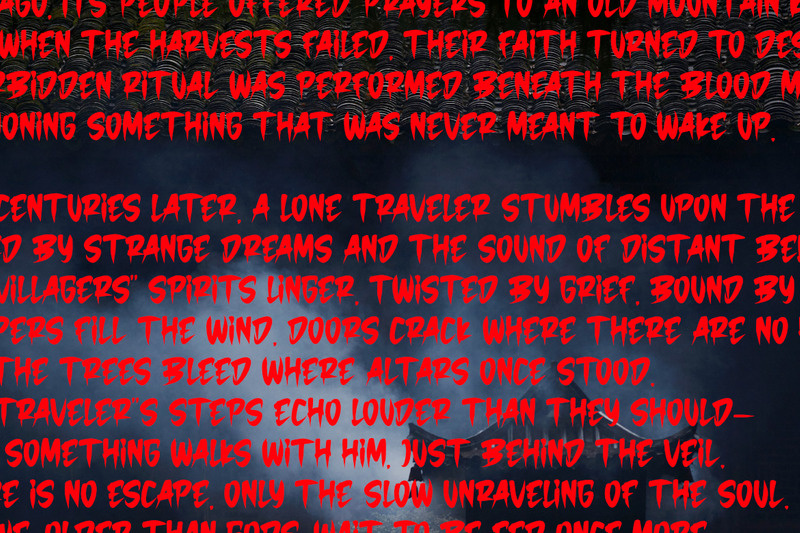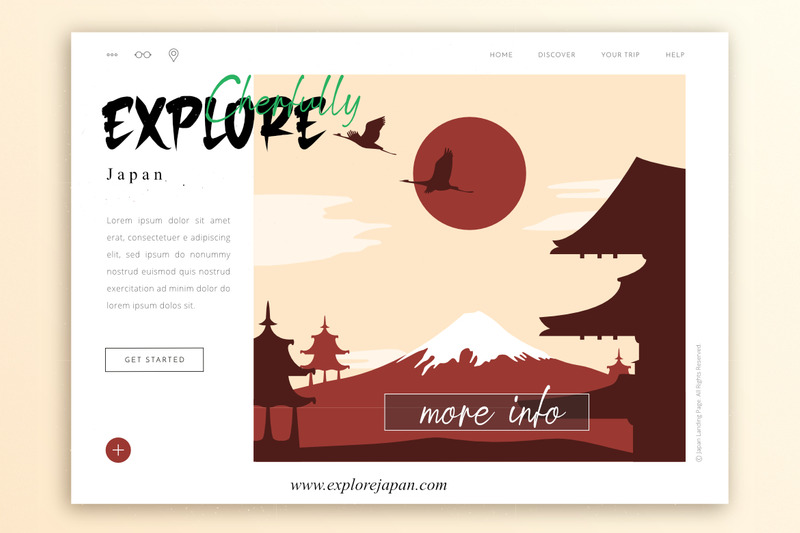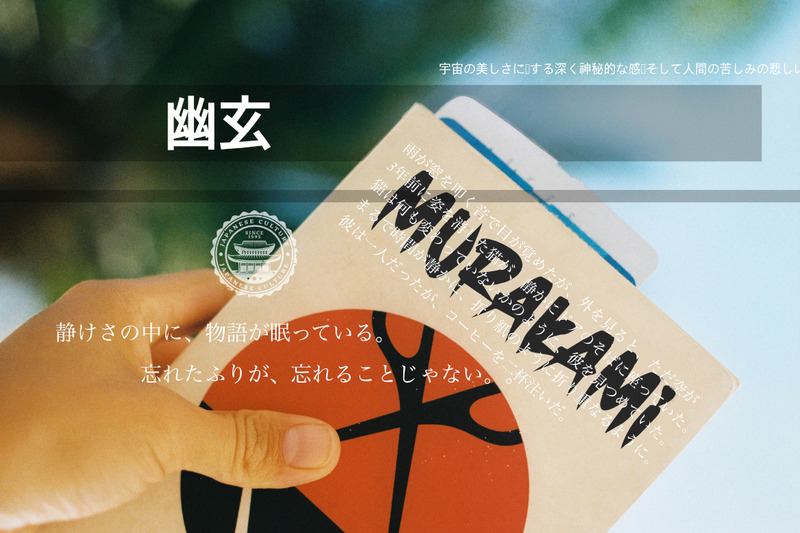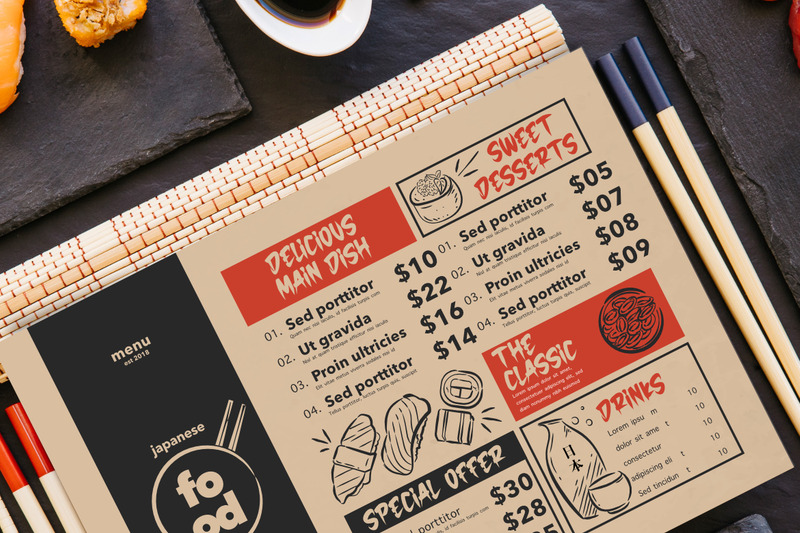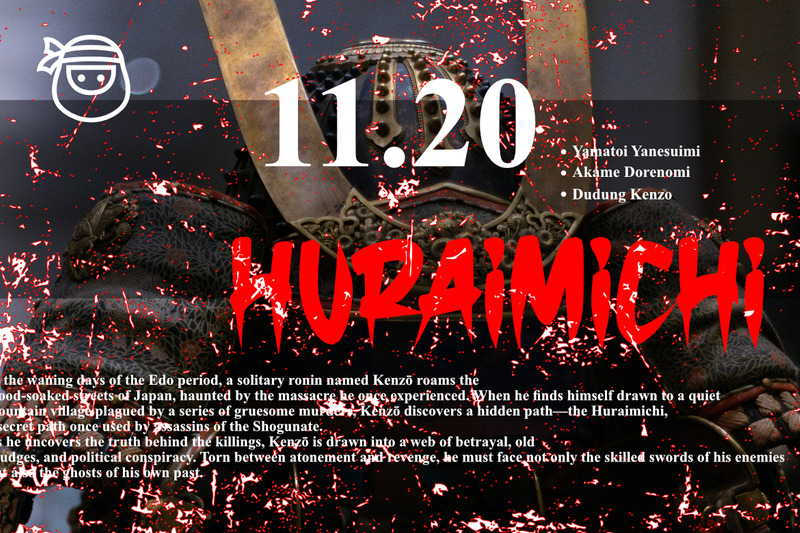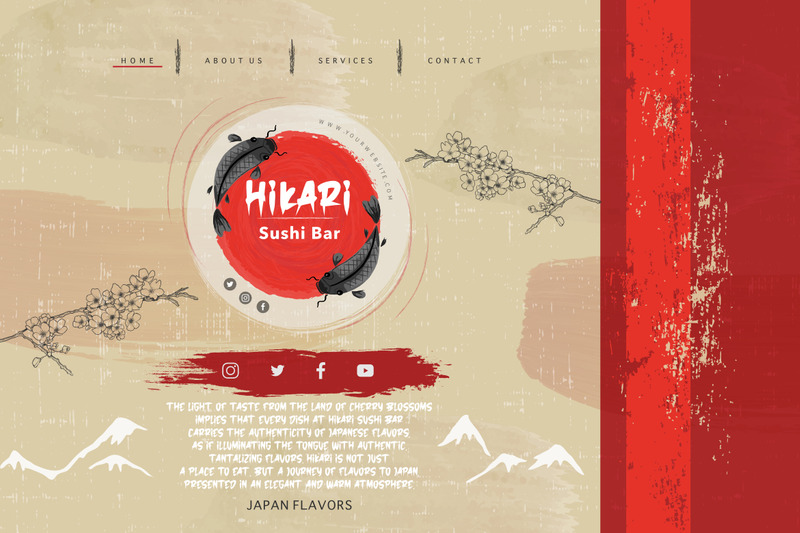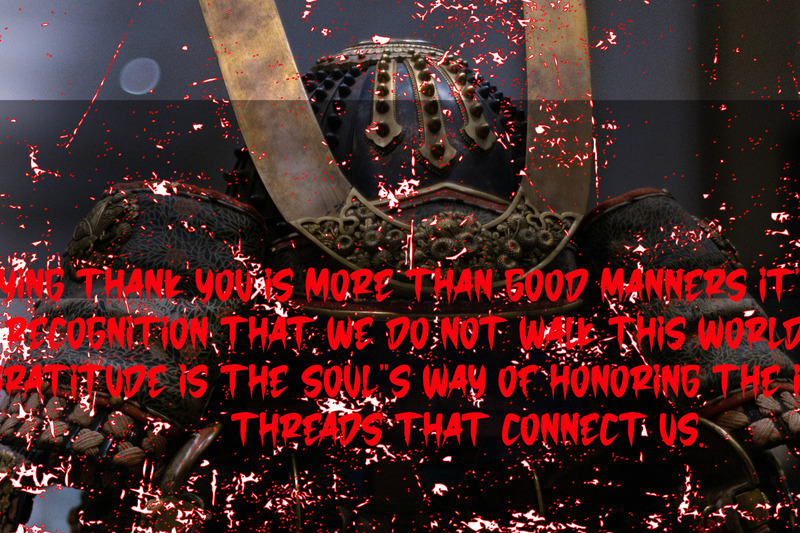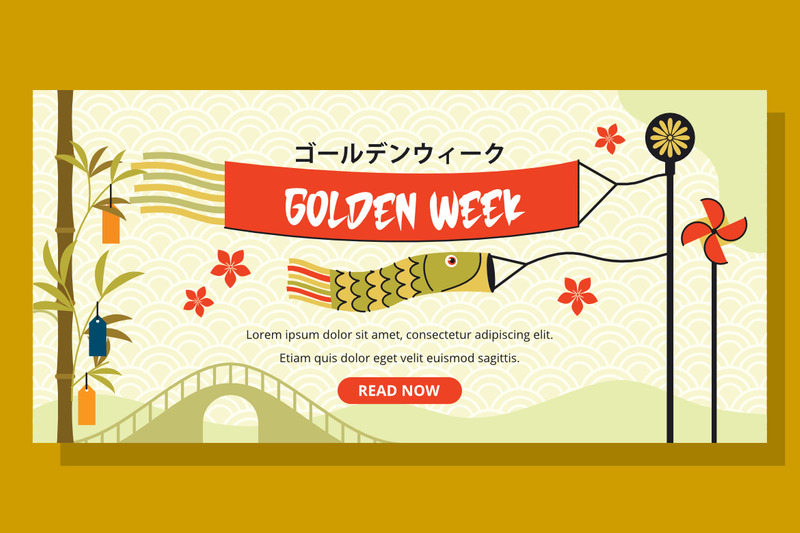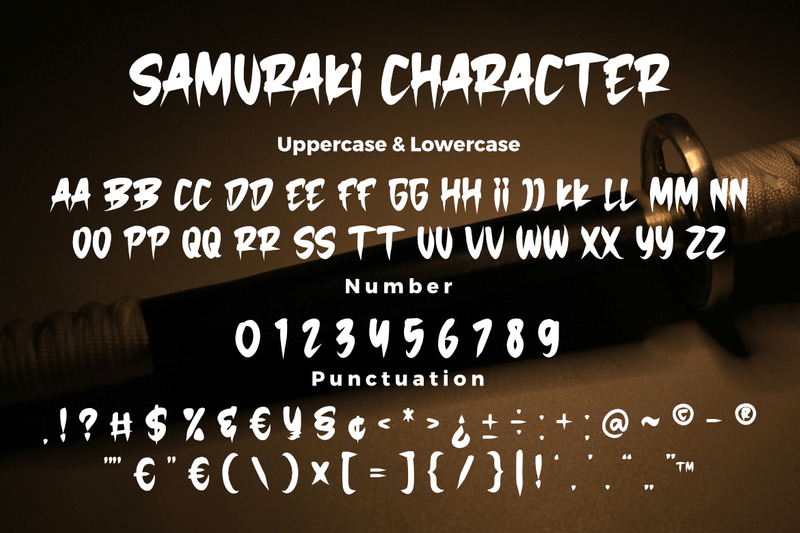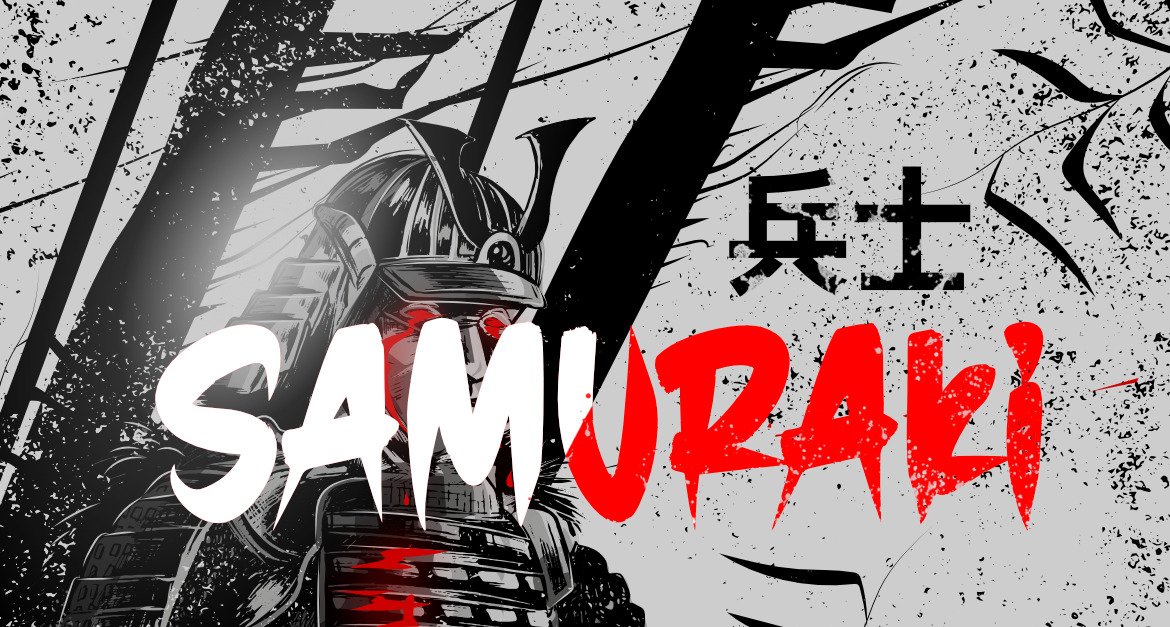
Samuraki Japanese Samurai Font
**Samuraki Japanese Samurai Font**, This font is made with a high premium quality level which you can use as flyers, quotes, posters, banners, packaging, merchandise, logotypes and much more.
**FEATURES :**
* Uppercase
* Lowercase
* Number
* Punctuation
* Multilingual